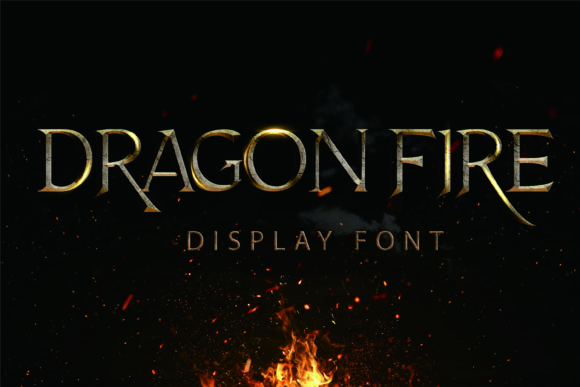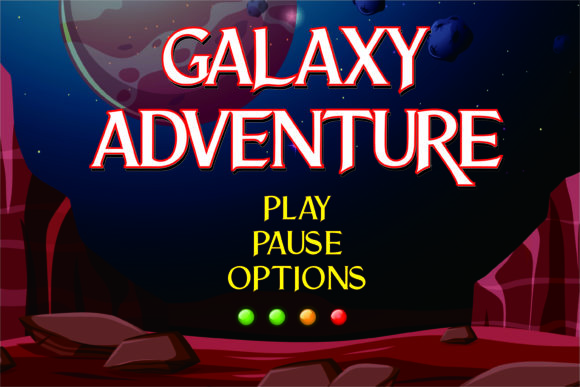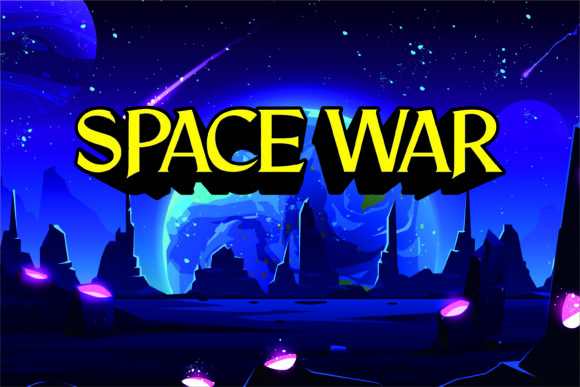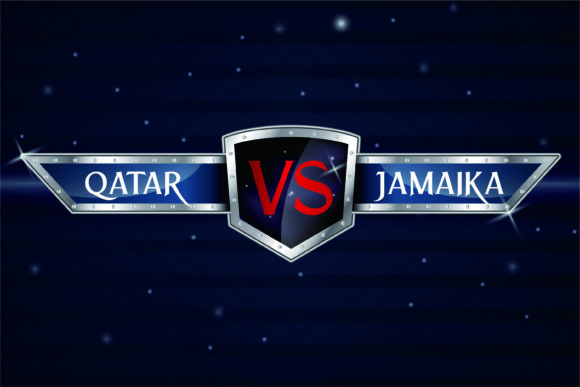
Dragon Fire Font: A Bold Display Font for Epic Logos & Game Titles
About the Dragon Fire Font
Make a bold statement with Dragon Fire Font, a powerful and memorable font. Dragon Fire is an amazing display font. This elegant font is perfect for logos, posters, games and any creative project.
Dragon Fire excels as a display font for headlines, posters, and branding projects requiring a bold and elegant statement. Its strong forms make it ideal for logos and short impactful text, particularly in situations where a touch of sophisticated drama is desired. However, its highly decorative nature makes it unsuitable for body text or UI elements where readability is paramount. Avoid using it for long paragraphs or small sizes.
This font pairs well with clean, geometric sans-serifs like Montserrat or Futura for a modern contrast, or with a classic serif like Garamond or Playfair Display to emphasize its elegant qualities. For a more playful feel, consider pairing it with a rounded sans-serif such as Lato or a slightly quirky script font.
Dragon Fire projects a powerful, sophisticated, and slightly rebellious personality; ideal for brands targeting a discerning audience seeking a memorable visual identity. Its inherent elegance prevents it from feeling overly aggressive, while maintaining a strong presence.